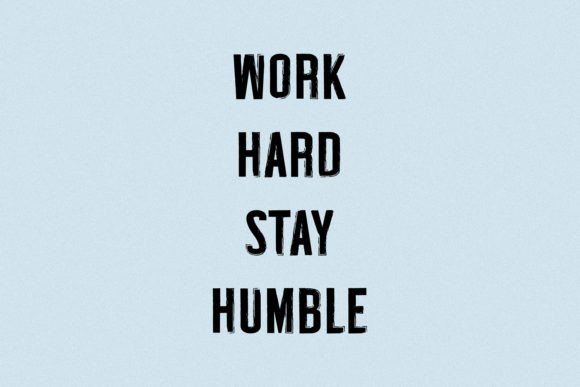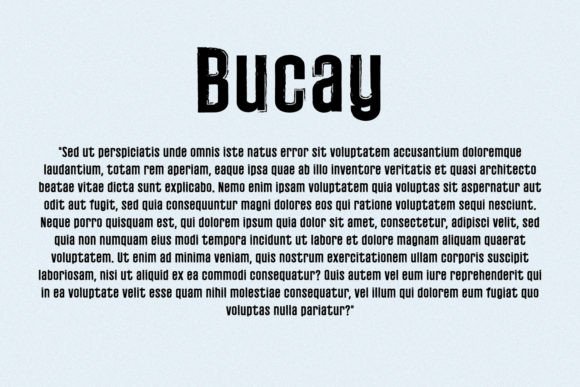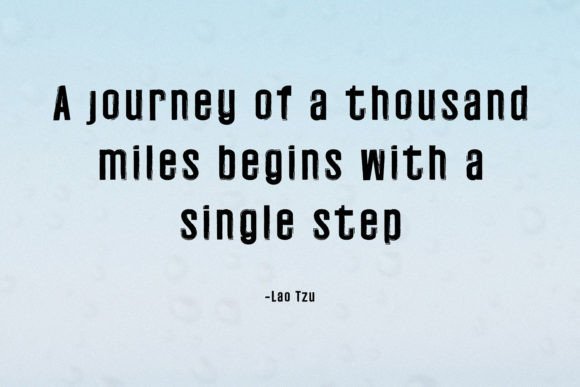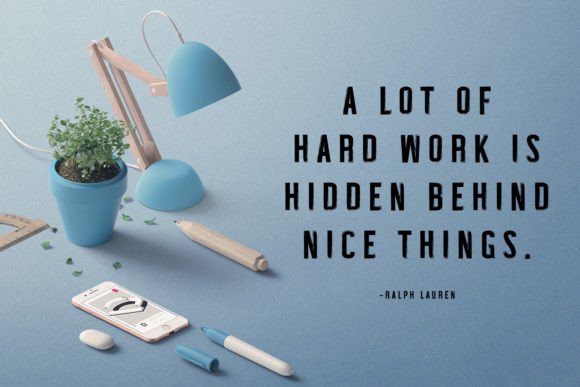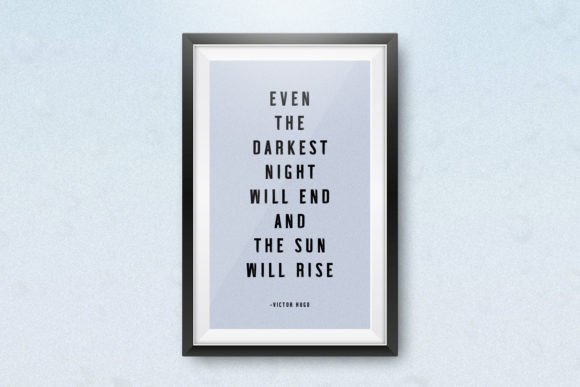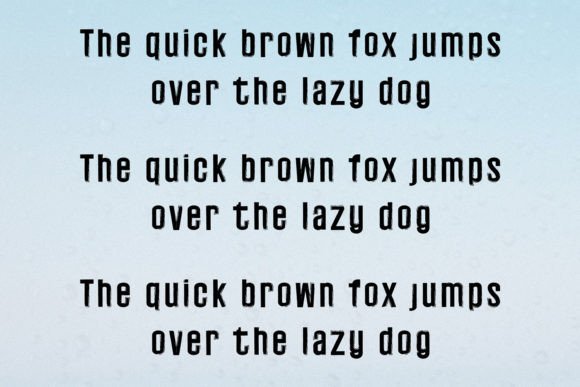
Introducing Bucay: The Modern Bold Brush Font That Will Elevate Your Designs
In the world of typography, a good font can make all the difference in the success of a design project. Whether you’re a seasoned designer or a crafty DIY enthusiast, finding the right font can be a daunting task. That’s why we’re excited to introduce Bucay, a cool, innovative, and modern bold brush font that’s sure to capture your heart. With its incredibly versatile style, Bucay is perfect for a wide range of applications, from packaging and presentations to logos, headlines, and more.
What Makes Bucay Special?
Bucay is more than just a font – it’s a design solution that can elevate your projects to the next level. Its unique blend of bold and brush-like characteristics makes it perfect for creating eye-catching designs that demand attention. Whether you’re looking to create a stunning logo, a beautiful poster, or a professional presentation, Bucay has got you covered.
10 Ways to Use Bucay in Your Designs
So, what can you do with Bucay? The possibilities are endless! Here are 10 ways to use this amazing font in your designs:
- Packaging design: Create stunning packaging designs that stand out on store shelves with Bucay’s bold and eye-catching style.
- Presentations: Add a touch of professionalism and sophistication to your presentations with Bucay’s clean and modern look.
- Logos: Create a lasting impression with a custom logo designed with Bucay’s unique and memorable style.
- Headlines: Grab attention with Bucay’s bold and attention-grabbing headlines that are perfect for posters, magazines, and more.
- Lettering: Add a personal touch to your designs with Bucay’s beautiful and expressive lettering style.
- Posters: Create stunning posters that demand attention with Bucay’s bold and eye-catching style.
- Branding: Establish a strong brand identity with Bucay’s consistent and recognizable style.
- Quotes: Highlight inspiring quotes and sayings with Bucay’s beautiful and expressive style.
- Titles: Add a touch of elegance and sophistication to your titles with Bucay’s clean and modern look.
- Web layouts: Create stunning web layouts that engage and inspire with Bucay’s versatile and modern style.
Why Choose Bucay?
So, why choose Bucay over other fonts? Here are just a few reasons why Bucay stands out:
- Versatility: Bucay is an incredibly versatile font that can be used in a wide range of applications.
- Modern style: Bucay’s modern and bold style is perfect for creating designs that demand attention.
- Easy to read: Despite its bold style, Bucay is easy to read and understand, making it perfect for body text and headlines.
- Unique character: Bucay’s unique character and style make it perfect for creating designs that stand out from the crowd.
Tips for Using Bucay in Your Designs
Here are a few tips for getting the most out of Bucay in your designs:
- Experiment with different sizes: Bucay looks great in a variety of sizes, from small body text to large headlines.
- Play with color: Bucay’s bold style looks great in a wide range of colors, from bright and bold to subtle and muted.
- Mix and match: Don’t be afraid to mix and match Bucay with other fonts to create a unique and interesting design.
In conclusion, Bucay is an amazing font that’s perfect for designers and crafters looking to elevate their designs. With its incredibly versatile style, Bucay is perfect for a wide range of applications, from packaging and presentations to logos, headlines, and more. Whether you’re a seasoned designer or just starting out, Bucay is sure to become a favorite in your font collection.